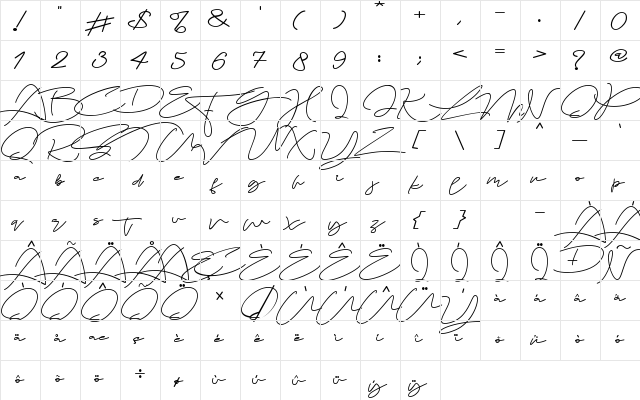
Margareta Regular
| Designer | Letterara 2019 |
Design Context for Margareta Typeface
Margareta is a composed and adaptable typeface that performs quietly and consistently across a wide range of design contexts.